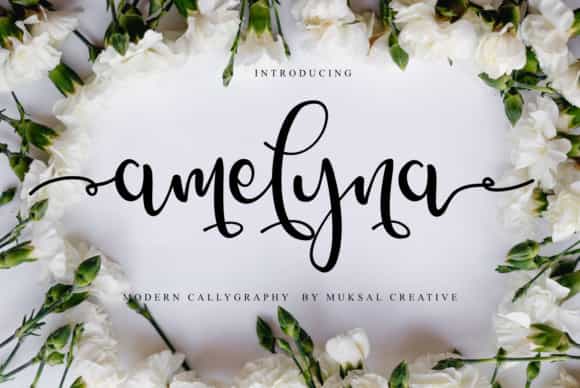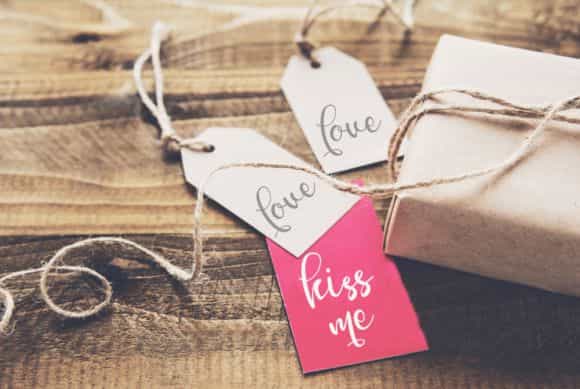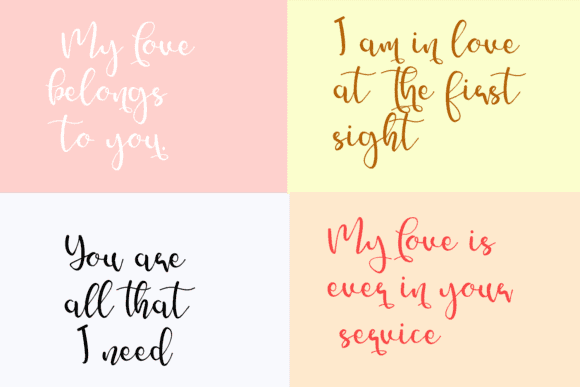
Amelyna Script Font – A new fresh and beautiful handwritten font for your project. This is a new fresh & modern script with a Handmade calligraphy style, decorative characters, and dancing baseline! It is created by Muksal Creative and it has been posted on the internet for public use. Amelyna is a script type font with sweet and charming appearance and beautiful swashes. Use it to take any concept as a design and transform it into a masterpiece.